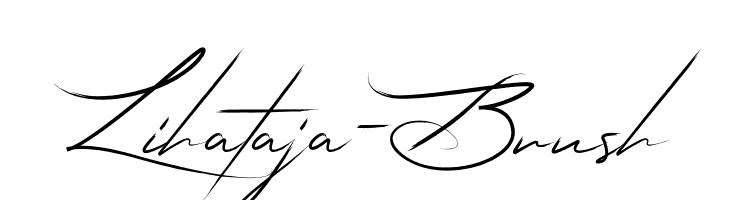
An elegant and flowing script font with a hand-drawn quality.
A modern, italic font with sharp, angular lines and a geometric style.
An edgy, jagged font with a dripping, grungy aesthetic.
An artistic and decorative font with flowing, interconnected strokes.
A bold, jagged font with a graffiti-inspired, distressed look.
A whimsical and decorative font with playful curls and ornate details.
A dynamic and expressive script font with fluid, sweeping strokes.
A bold, italic font with a modern and dynamic style.
A playful and elegant script font with flowing, cursive design.
A decorative font with snowman-themed letters, perfect for festive projects.